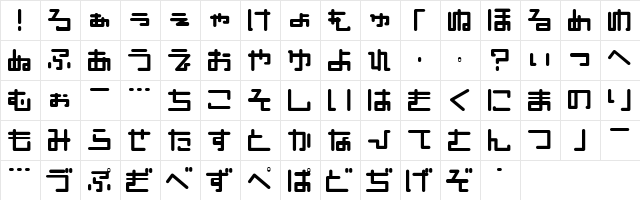
EOPshion Regular Font Preview
EOPshion Regular
Design Context for EOPshion Typeface
EOPshion offers clean, dependable letterforms without strong stylistic allegiance, making it a practical choice for designers who need flexibility.